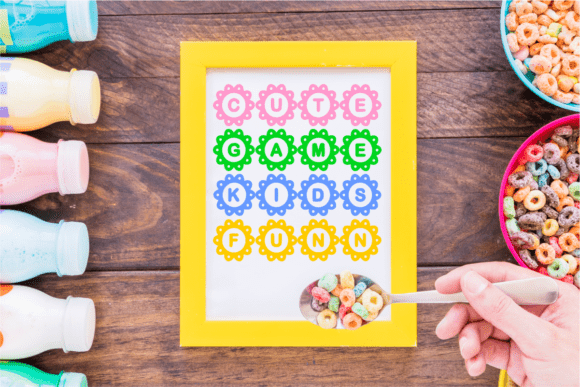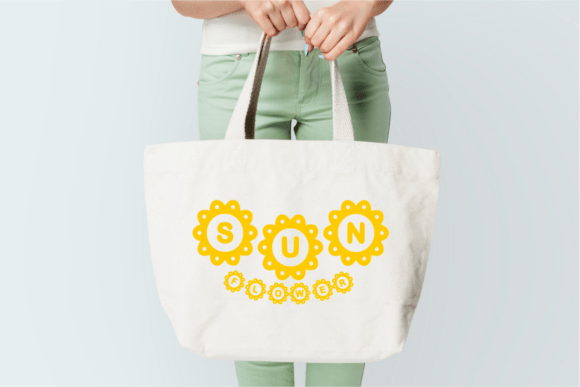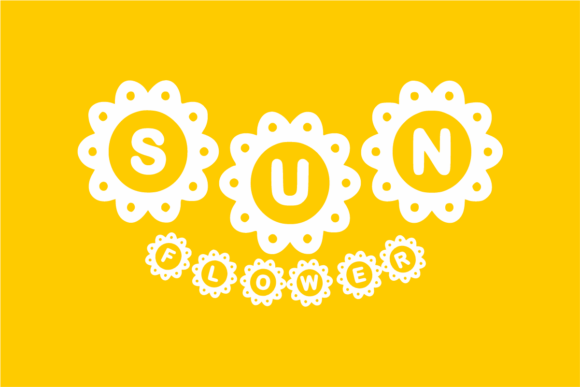
The Ultimate Guide to Grains Font: A Sunflower-Shaped Decorative Delight
Have you ever been in the middle of a design project, and suddenly, you just can’t seem to find the right font? I recall a particularly frustrating experience while working on a children’s book project. My client wanted a font that was playful, unique, and instantly recognizable. After hours of scouring the internet, I stumbled upon Grains Font – a cool, decorative sunflower-shaped font that consists solely of uppercase letters. It was love at first sight! ✨
An Honest Review of Grains Font
What I Love About Grains Font
- ✨ Unique and Playful Design: Each character in Grains Font is cute, unique, and sweet, making it instantly recognizable.
- ✅ Versatility: This font is perfect for a wide range of projects, including children’s craft designs, sublimated t-shirts, mugs, tote bags, animations, comic titles, children’s coloring books, and more.
- 🌟 Easy to Read: Despite its decorative nature, Grains Font is surprisingly easy to read, making it suitable for both headings and body text.
- 🤔 Limited Character Set: As Grains Font consists solely of uppercase letters, it may not be the best choice for projects that require a wide range of characters.
- ⚠️ Not Suitable for Body Text: While Grains Font is easy to read, its decorative nature makes it more suitable for headings and titles rather than body text.
The Backstory of Grains Font
Grains Font was designed with the intention of creating a unique and playful font that would bring a touch of sunshine to any design project. The designer, inspired by the beauty of sunflowers, created a font that is both decorative and easy to read. The result is a font that is perfect for a wide range of projects, from children’s crafts to professional designs.
Q: What is Grains Font?
A: Grains Font is a cool, decorative sunflower-shaped font consisting solely of uppercase letters.
Q: What is Grains Font suitable for?
A: Grains Font is perfect for children’s craft designs, sublimated t-shirts, mugs, tote bags, animations, comic titles, children’s coloring books, and more.
Q: Is Grains Font easy to read?
A: Yes, despite its decorative nature, Grains Font is surprisingly easy to read, making it suitable for both headings and body text.